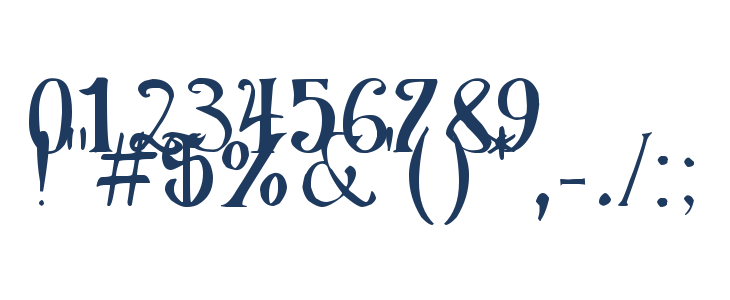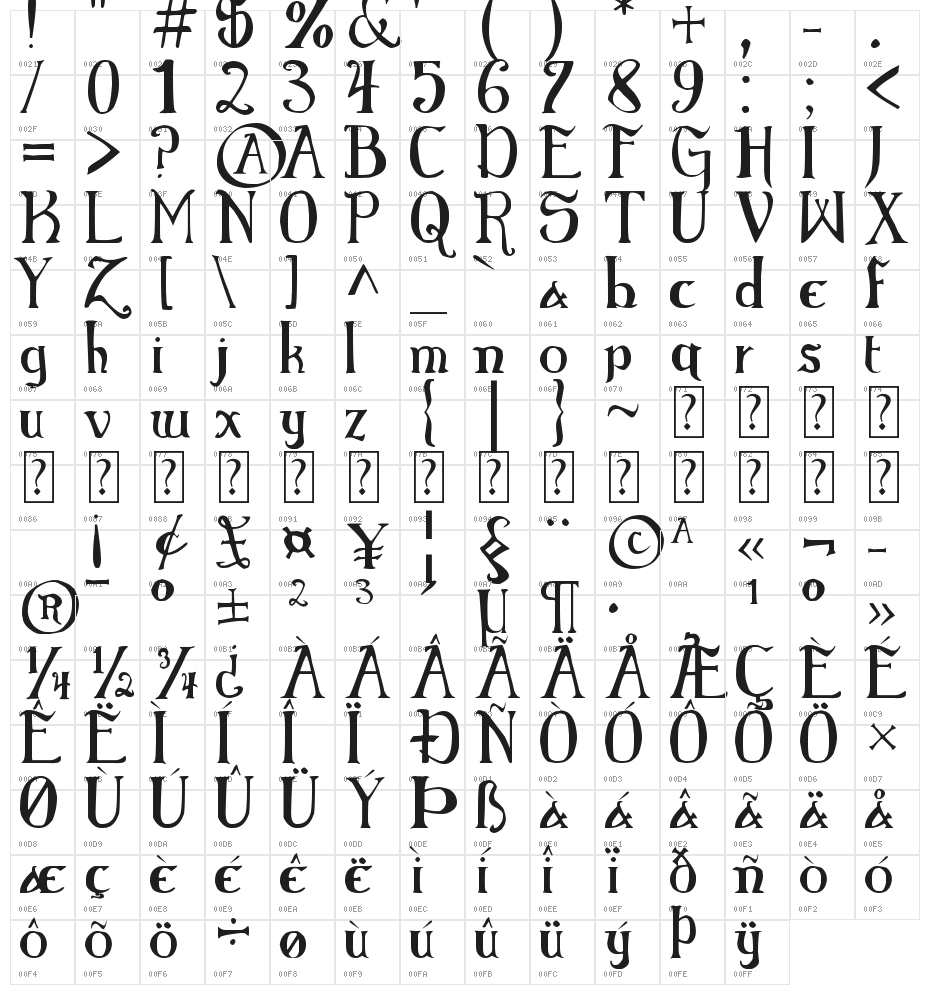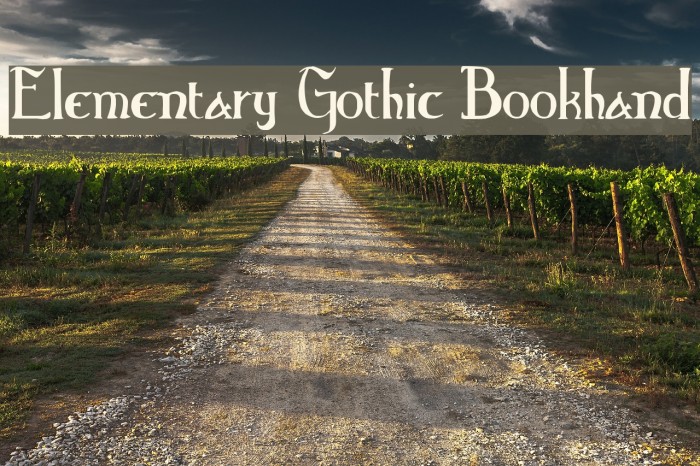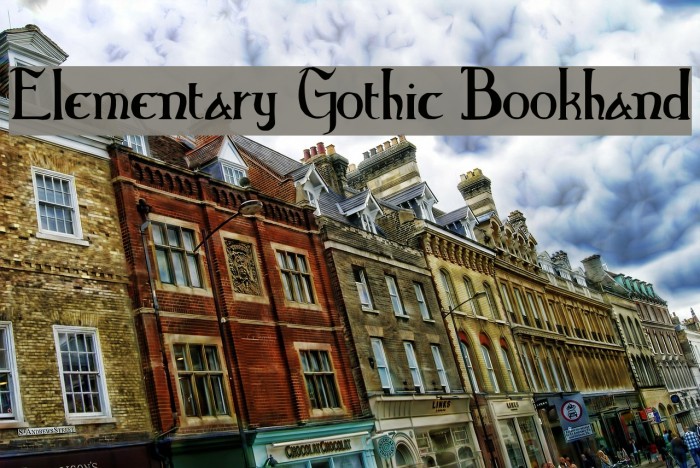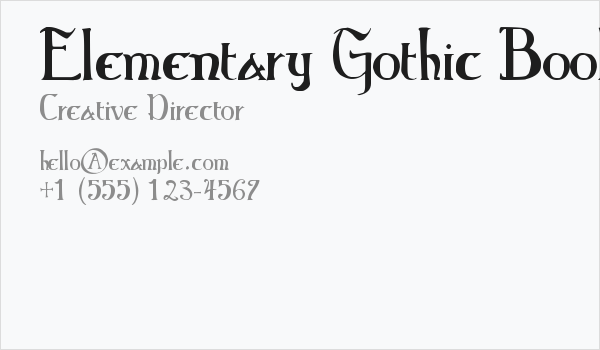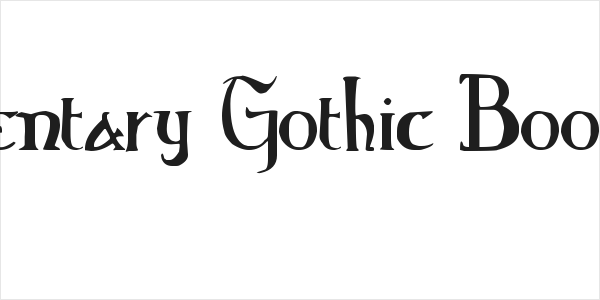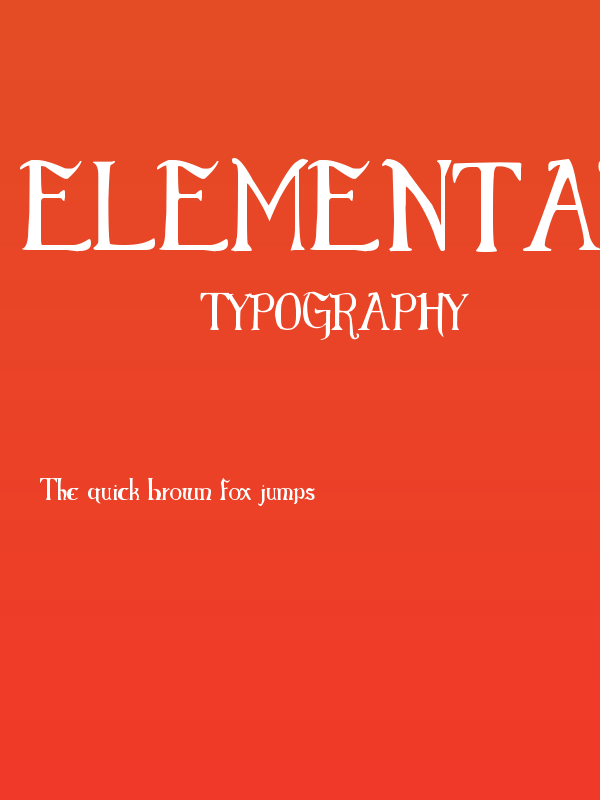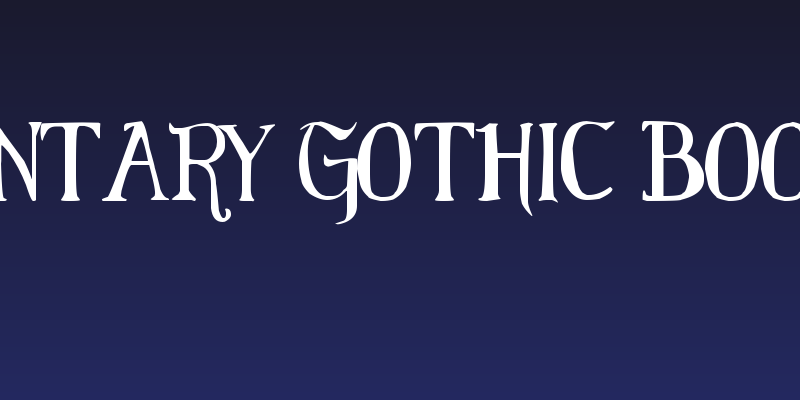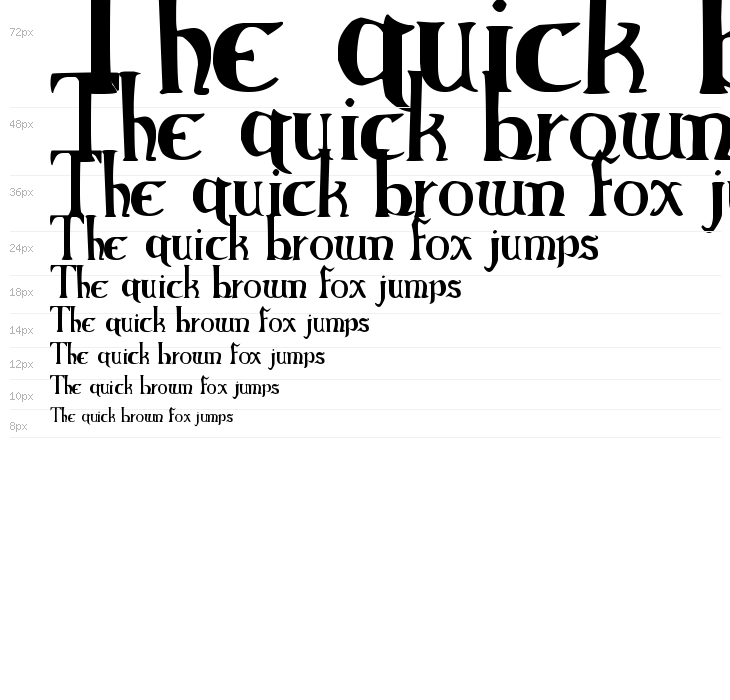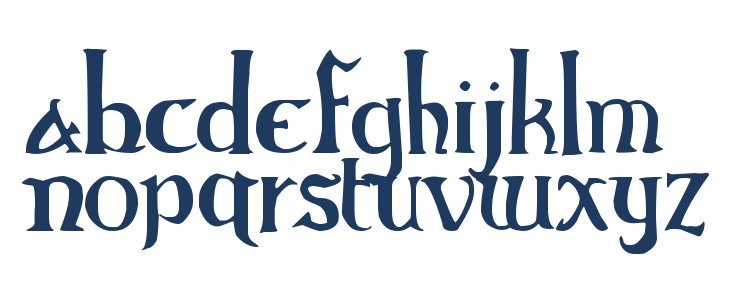
Elementary Gothic Bookhand Font
Elementary Gothic Bookhand Description
This font features a distinctive, medieval-inspired style with a strong emphasis on angular and pointed serifs. The uppercase letters exhibit a tall and narrow form, while the lowercase letters maintain a consistent flow with slightly rounded edges. The numerals are bold and clear, complementing the overall gothic aesthetic. Special characters are intricately designed, adding to the font's decorative appeal. The strokes are moderately thick, providing a balanced contrast that enhances readability while maintaining an ornate appearance. This font is ideal for projects that require a historical or fantasy theme, offering a unique blend of elegance and drama.